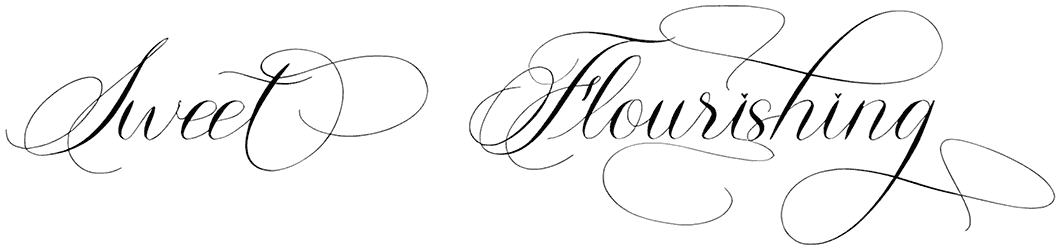
Sweet Flourishing Font
If you want to create an inherent elegance and look like a magnificent and luxurious brand in the eyes of the audience, then Sweet Flourishing is perfect for you. This calligraphy font has ultra-thin lines or classic twists that can inject a sense of preciousness into your projects.
So, if you are working on branding for a new clothing brand, have a great idea for jewelry packaging, or want a very stylish wedding card, this funeral font will be your strength.